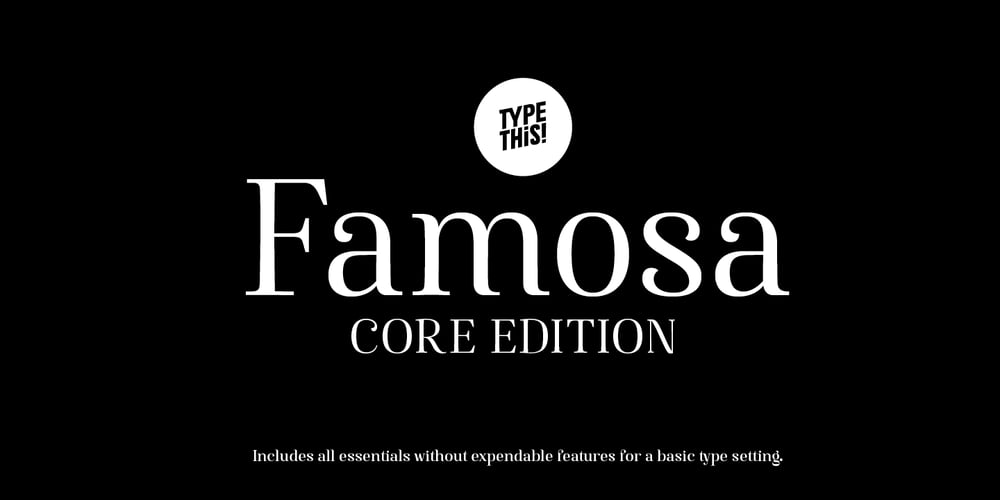
Famosa Core Edition Font Family was designed by Anita Jürgeleit and published by TypeThis!Studio. Famosa Core Edition contains 4 styles and family package options. Modern aesthetic meets classy handmade elegance.Famosa is designed for all your stylish fashion magazines, clothing brands, and logos as well as your elegant blogger themes. The highlights are for sure the beautiful ligatures, such as sh, ct, fb and more.If you need more features like small caps, special symbols, extensive language support like Vietnamese, please visit: https://typethis.studio– Famosa is well known from Netlix’ Series ‘Sweet Magnolias’